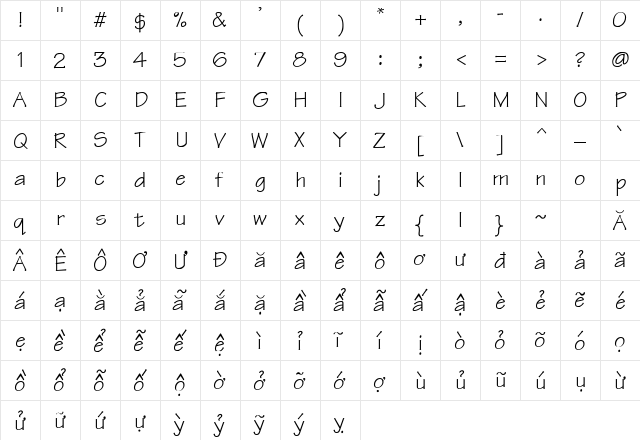
.VnTeknical Regular
Design Context for .VnTeknical Typeface
.VnTeknical takes a measured approach to typography — its balanced proportions and neutral character make it a reliable workhorse for both digital and print work.